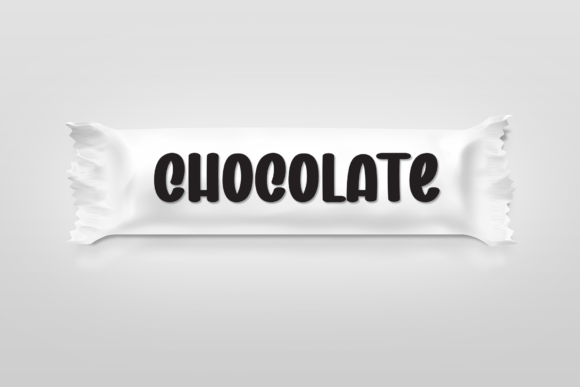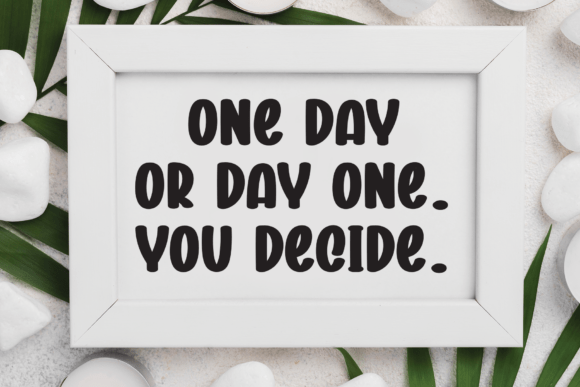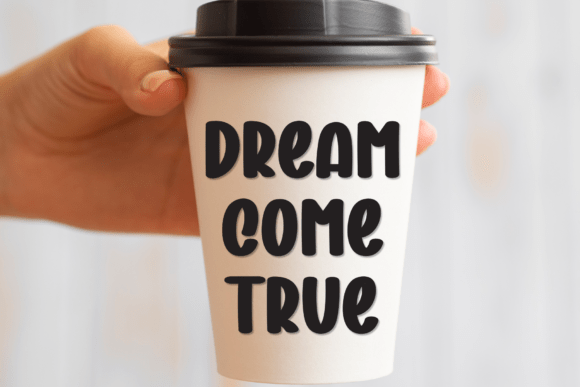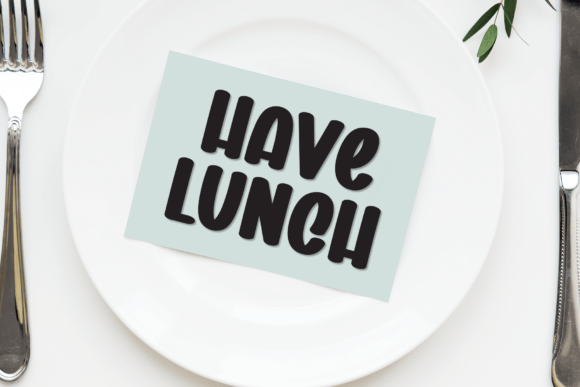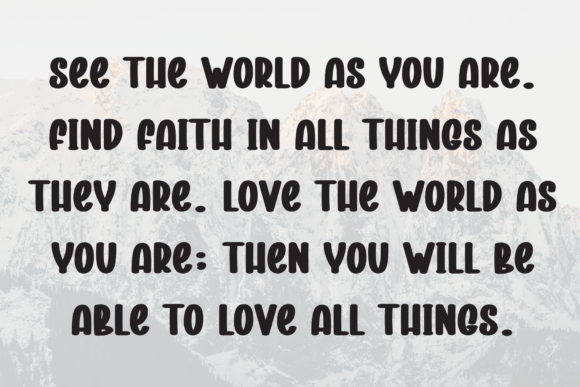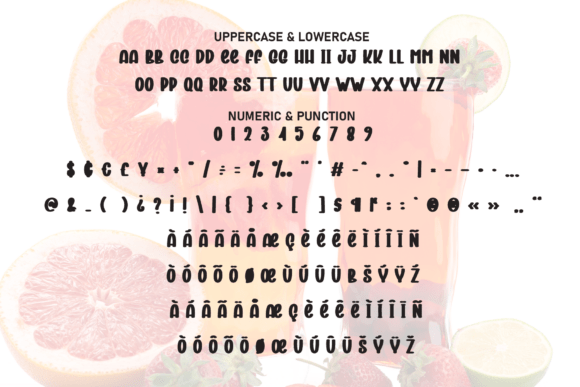
Unleash Your Creativity with Fresh Juice Font
There’s something magical about holding a beautiful, handwritten invitation in your hands, feeling the texture of the paper and admiring the unique flair of the font. For many designers, this moment is what sparks the creative process. It’s the thrill of bringing a concept to life, of infusing personality into a design. And for those looking to add a touch of whimsy to their work, Fresh Juice Font is about to become their new best friend.
Meet “Sweet Harmony,” a delightful handwritten display font that embodies the perfect blend of charm and elegance. This font is designed to bring a smile to your face and a twinkle to your designs. Whether you’re crafting wedding invitations, designing greeting cards, or simply looking to add a touch of fun to your branding, Fresh Juice Font is the perfect companion for your creative journey.
Fresh Juice Font Key Features
- Unique Characteristics: Fresh Juice Font features a unique blend of modern and vintage elements, with a bold and playful style that is perfect for creating eye-catching headlines and titles.
Fresh Juice Font Review
I’ve had the chance to work with Fresh Juice Font and I must say, it’s a delightful addition to any project. ✨ The font’s playful and modern design makes it perfect for branding and digital products. The font’s versatility shines through in its various styles and weights, allowing for a wide range of creative possibilities.
- What I love:
- ✨ Beautiful, modern design
- ✨ Highly customizable
- ✨ Suitable for digital and print projects
- What could be improved:
- ⚠️ Limited character set support
- ⚠️ May not be suitable for formal or traditional projects
Overall, I’m impressed with Fresh Juice Font’s potential and versatility. While it may not be the perfect fit for every project, it’s certainly a great option for those looking for a modern, playful font. With a bit more development to address the limitations, I’d consider Fresh Juice Font a top contender in the font market.
To get the most out of Fresh Juice Font, use it for:
- Headings and titles to add a touch of elegance and sophistication.
- Body text to create a cohesive and modern look.
- Branding and logos to create a unique and recognizable identity.
For optimal results, pair Fresh Juice Font with a clean and minimalist design aesthetic.
Alternatives to Fresh Juice Font for Designers
Lato Font is a modern sans-serif typeface designed by Łukasz Dziedzic. It’s perfect for creating a clean and minimalist design aesthetic. Use it for digital products, websites, and apps where readability is crucial. Lato Font is more versatile than Fresh Juice Font and offers a wider range of font weights and styles.
Open Sans Font is a popular sans-serif typeface designed by Steve Matteson. It’s highly legible and suitable for various design projects, including websites, magazines, and mobile apps. Open Sans Font is more versatile than Fresh Juice Font and offers a more extensive character set.
Montserrat Font is a sans-serif typeface inspired by the urban typography of Buenos Aires. It’s ideal for creating a modern and edgy design aesthetic. Use it for digital products, websites, and apps where you want to convey a sense of urbanity and sophistication. Montserrat Font is more geometric and industrial than Fresh Juice Font.